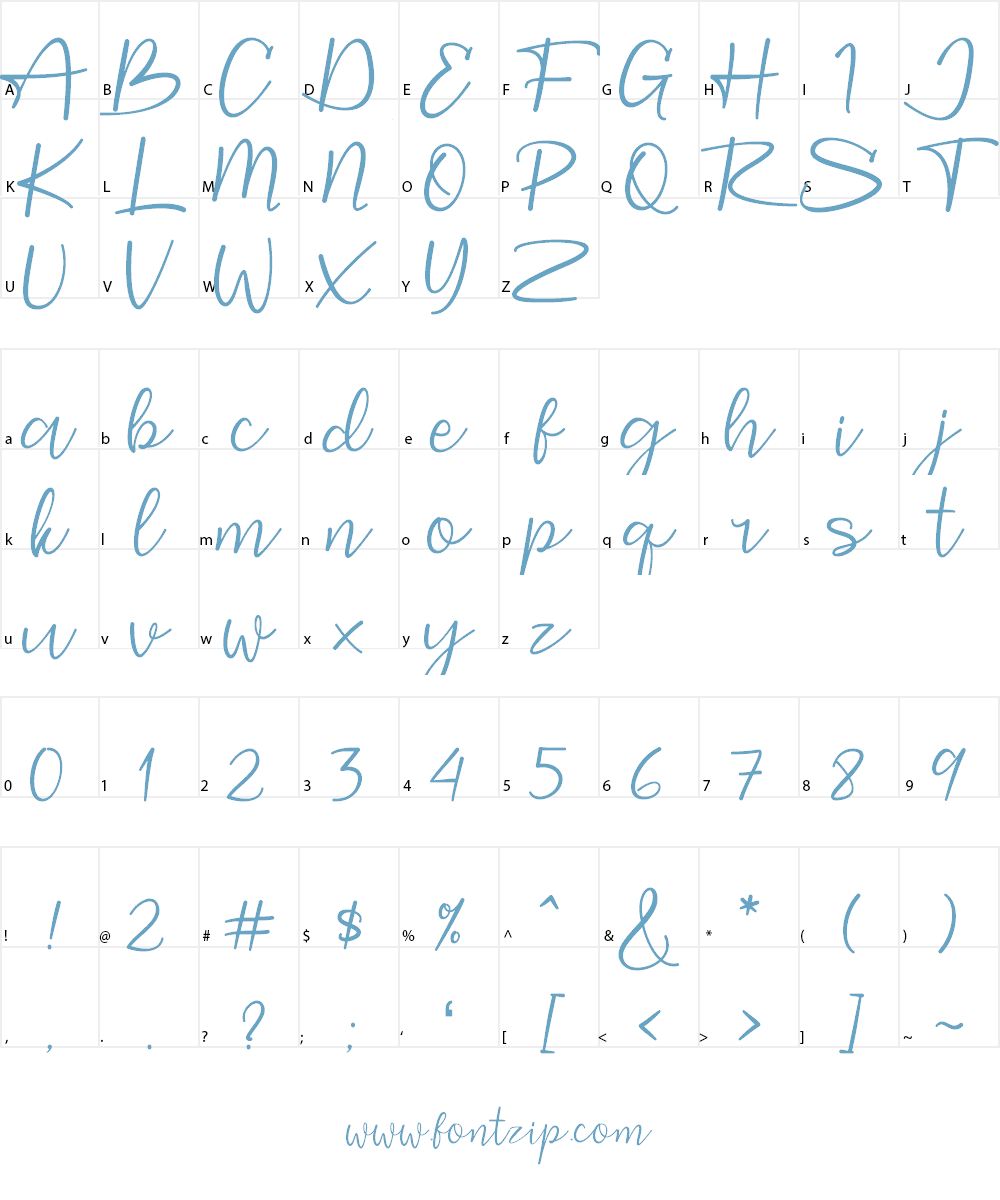
Starting is made for the purposes of branding design, the scratches look flowing naturally, it is perfect for designing your own brand and for other branding designs, these letters look perfect on all printing techniques, foil emboss, embroidery, and others.